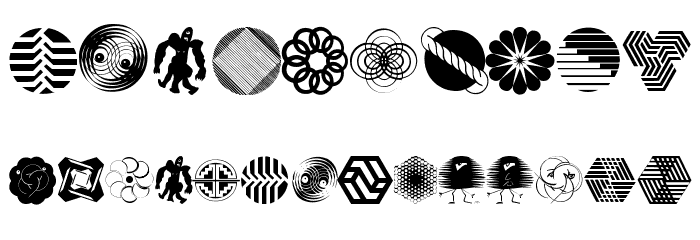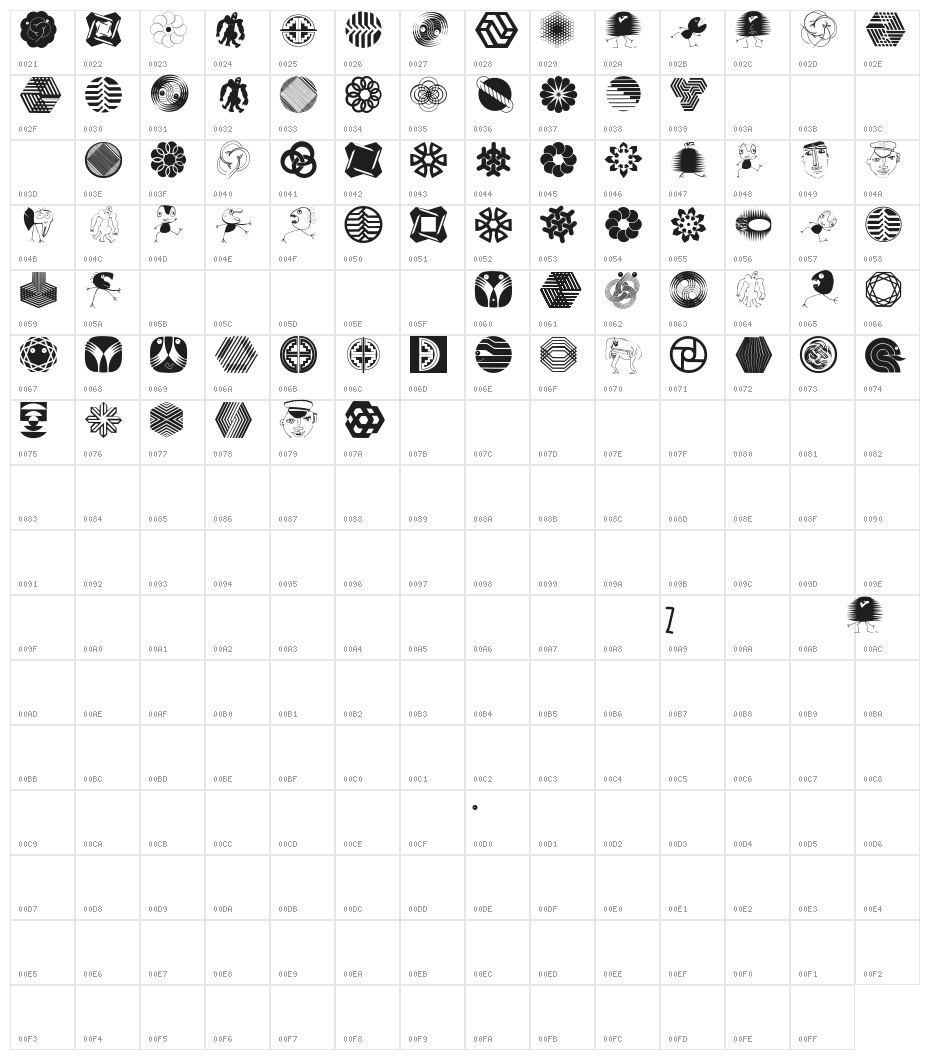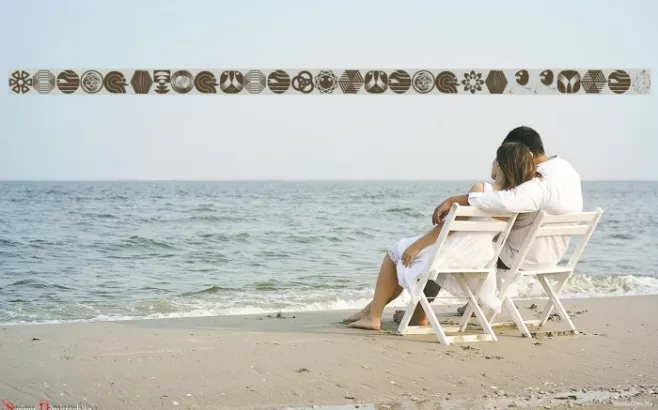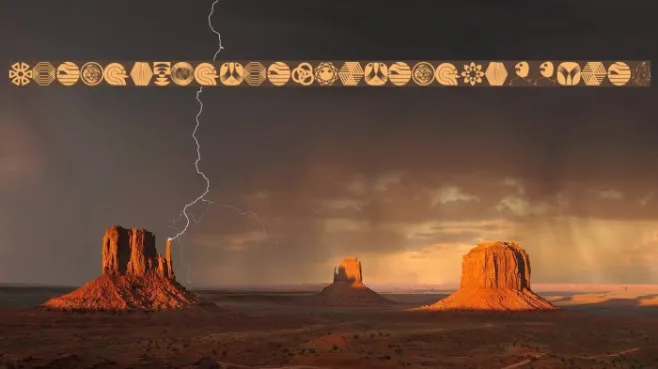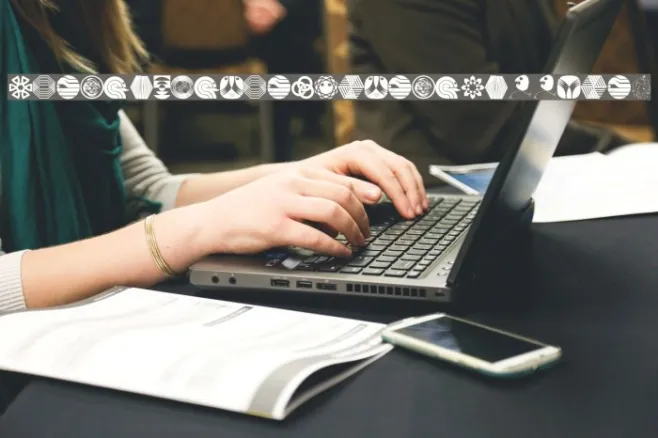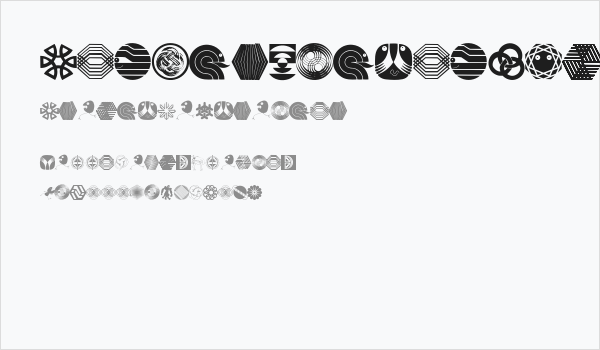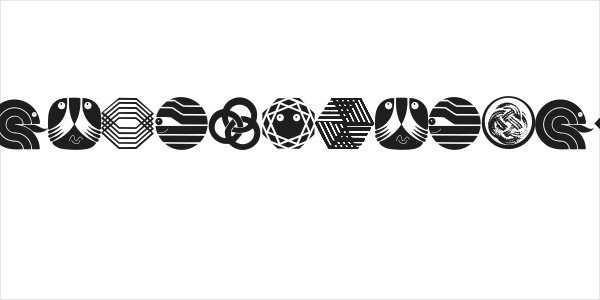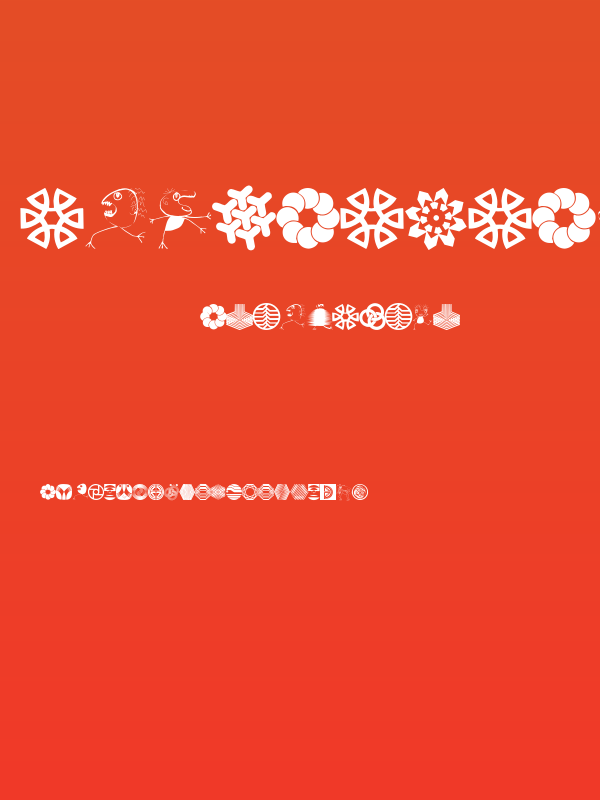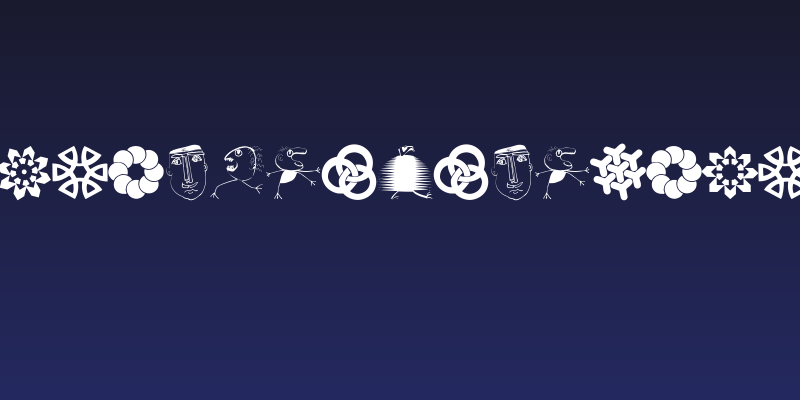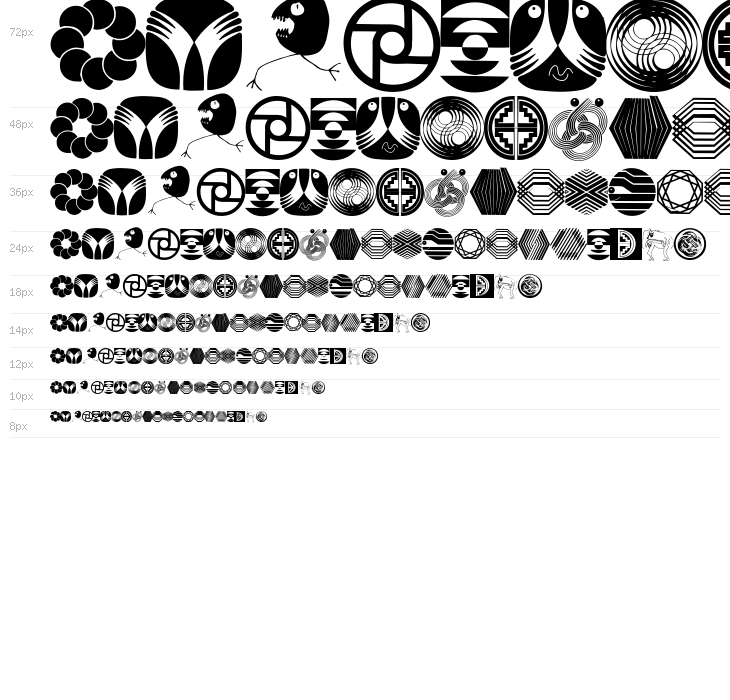
ConstructionAgainstFreehand Font
ConstructionAgainstFreehand Description
A highly decorative and eclectic dingbat font featuring a mix of geometric shapes, abstract patterns, and whimsical cartoon-like human figures. The glyphs are bold, high-contrast, and vary widely in complexity, with some resembling optical illusions or retro design motifs.
| Overall Style | Decorative, Retro, Whimsical, Abstract |
| Use Case | Logos, Posters, Decorative elements, Illustrations |
| Proposed Projects | Posters, album covers, branding for creative industries, editorial illustrations, event graphics, and experimental design projects. |